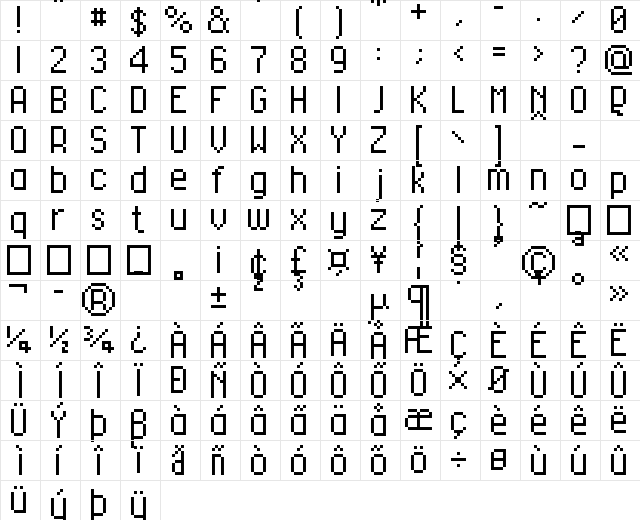
01Systematix9 Regular
Design Context for 01Systematix9
01Systematix9 is a composed and adaptable typeface that performs quietly and consistently across a wide range of design contexts.
Pro Tip: Use 01Systematix9 in both headline and body roles to test its range before committing to a single application.